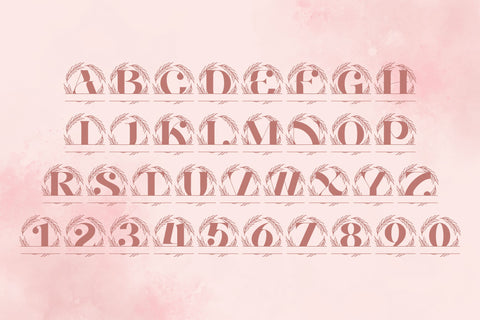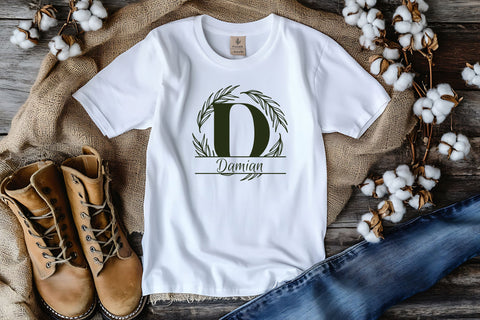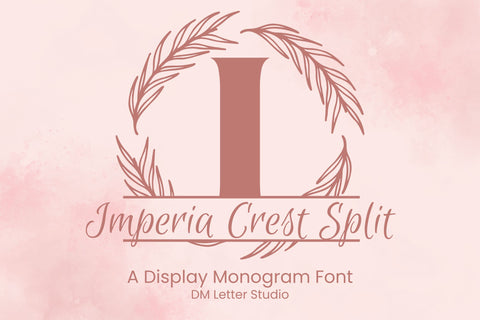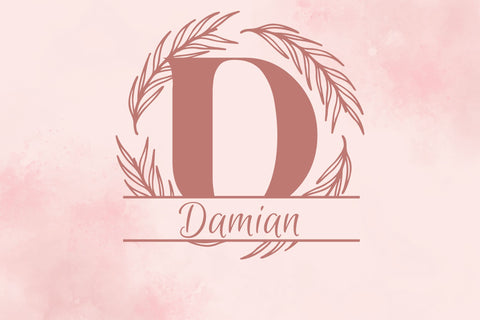
Imperial Crest Split Monogram – Royal Serif Font for Elegant Personalized Designs
Imperial Crest Split Monogram is a royal distinguished serif font crafted to elevate your personalized design work. With a clean horizontal split built into every uppercase letter, this font makes it effortless to insert names, dates, initials, or messages for timeless monogram layouts. Inspired by regal typography and noble aesthetics, it’s perfect for wedding signage, family keepsakes, custom gifts, formal branding, and high-end packaging.
The split design isn’t just for looks—it’s a functional space that welcomes your creativity. Whether you’re designing a Cricut vinyl decal, a wedding welcome board, or a digital design for Canva, the font maintains elegance while allowing for quick personalization. Each capital letter features stately serif detailing, strong structure, and balanced proportions, ensuring that your inserted text remains centered and visually striking.
Its bold lines and graceful shapes add a sense of sophistication to any project. The timeless serif style gives your work a luxurious tone, ideal for use on bridal shower invitations, stationery, embroidery, product labels, or even framed monogram wall art. If you’re looking to offer customized items in your online shop or add a premium touch to your branding, Imperial Crest Split Monogram is a strong and stylish choice.
Built-In Split Design: Makes it easy to personalize each letter with text or decorative elements.
Classic Serif Letterforms: Inspired by traditional monogram and crest styles.
Versatile Application: Ideal for weddings, product labels, branding, and crafts.